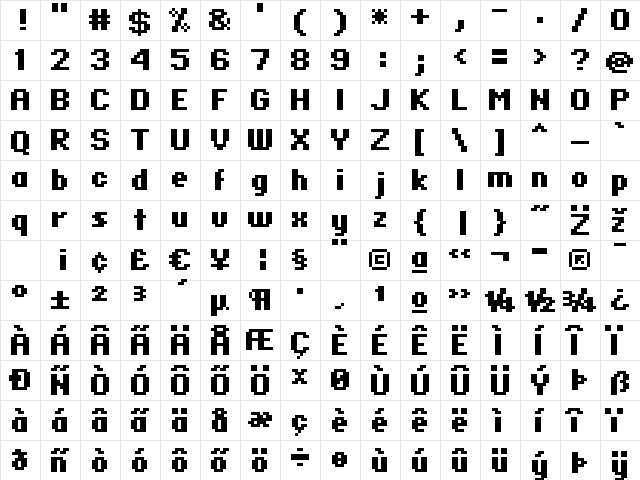
standard 07_66 Regular
| Designer | Craig Kroeger |
Design Context for standard 07_66 Typeface
standard 07_66 takes a measured approach to typography — its balanced proportions and neutral character make it a reliable workhorse for both digital and print work.